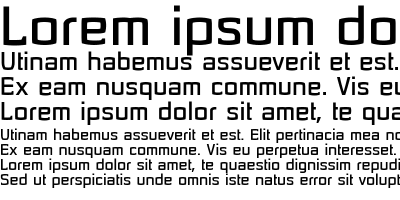
Volte Font
Volte Font is perfect for modern tech startups, contemporary corporate identities, clean editorial layouts, professional web interfaces, innovative product branding, sophisticated advertising campaigns, streamlined documentation, and cutting-edge digital communications. This precise typeface works exceptionally well in both digital applications and print media where clarity, efficiency, and contemporary professionalism are fundamental design requirements.
What makes Volte Font so exciting is its masterful interpretation of contemporary sans-serif design through precisely engineered letterforms that embody the perfect synthesis of technical accuracy and visual elegance. The font features sharp characters with optimized proportions, systematic spacing, and refined details that communicate innovation, reliability, and forward-thinking professionalism. Its sophisticated personality and technical precision make it ideal for brands seeking to establish authority in competitive technology markets while appealing to audiences who value efficiency, clarity, and the seamless integration of form and function in modern design.
The Volte Font family includes comprehensive weight variations from thin to black, along with matching italic styles and technical alternates. Each style maintains the typeface's precise character while offering extensive multilingual support, systematic numerals, professional punctuation marks, and special characters designed to enhance contemporary communications and technical branding efforts across global markets and diverse professional applications.
This extraordinary typeface represents the perfect evolution of sans-serif typography optimized for modern digital and professional environments. Whether you're developing technology company identities, creating contemporary corporate materials, or designing sophisticated user interfaces, Volte Font Free Download delivers the technical excellence and versatility needed for successful modern business communications. The font's systematic approach makes it particularly effective for software companies, design agencies, professional services, and organizations prioritizing precision, clarity, and contemporary aesthetic sophistication.
The precisely calibrated construction and optimized digital performance in Volte Font ensure exceptional readability while maintaining its distinctive contemporary character. Its professional versatility allows seamless application from detailed technical documentation to bold brand headlines, making it an essential tool for designers creating authoritative communications that establish immediate credibility with professional audiences seeking innovation, efficiency, and technical excellence.